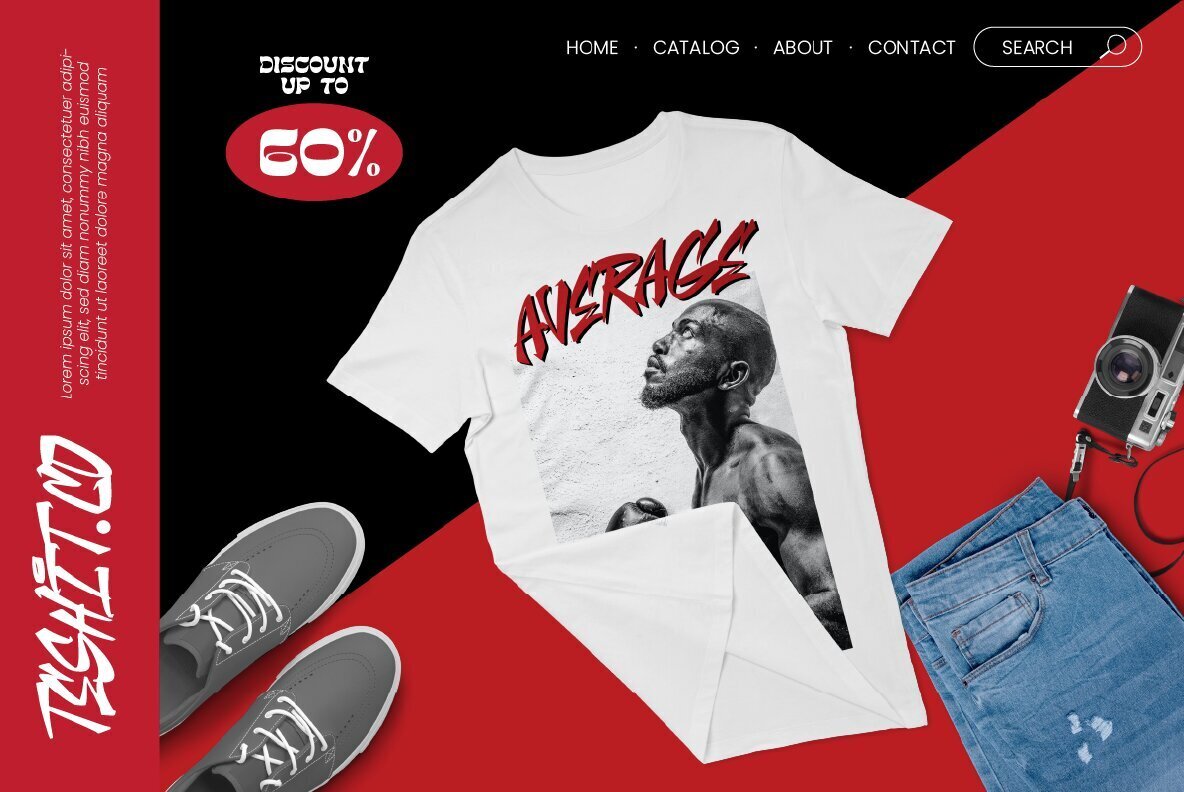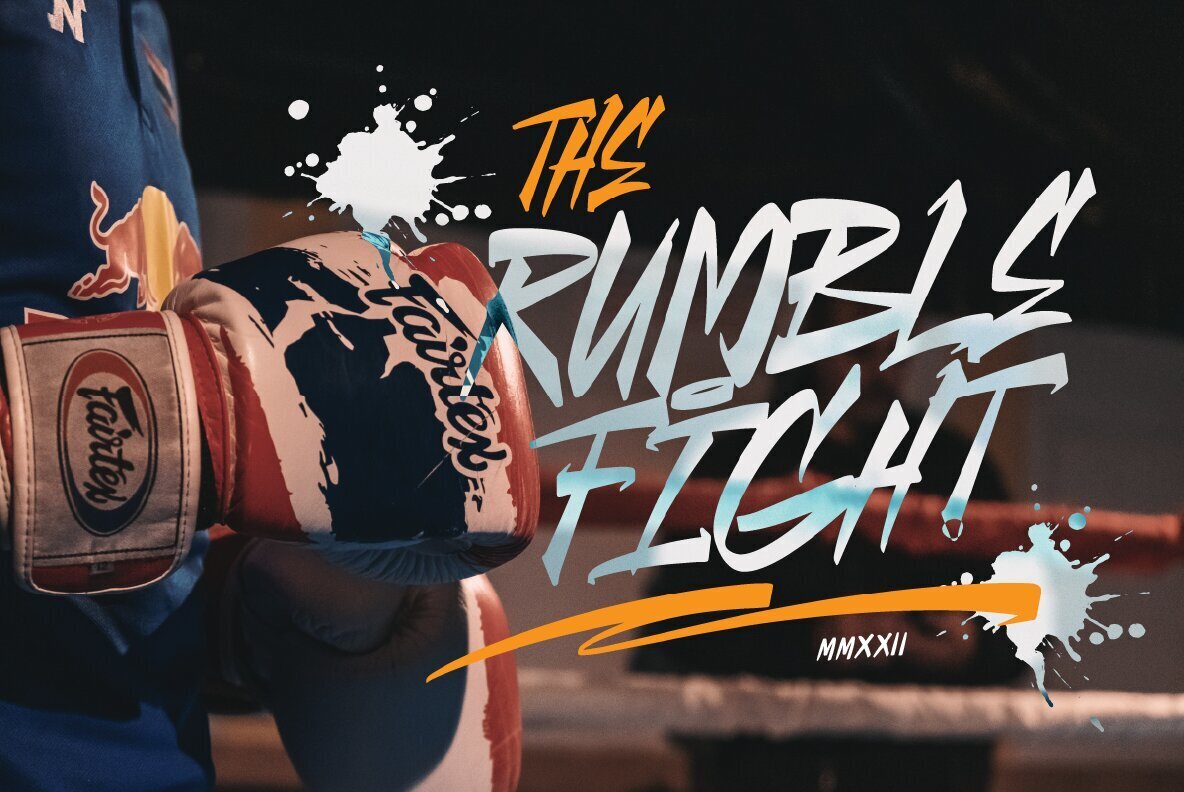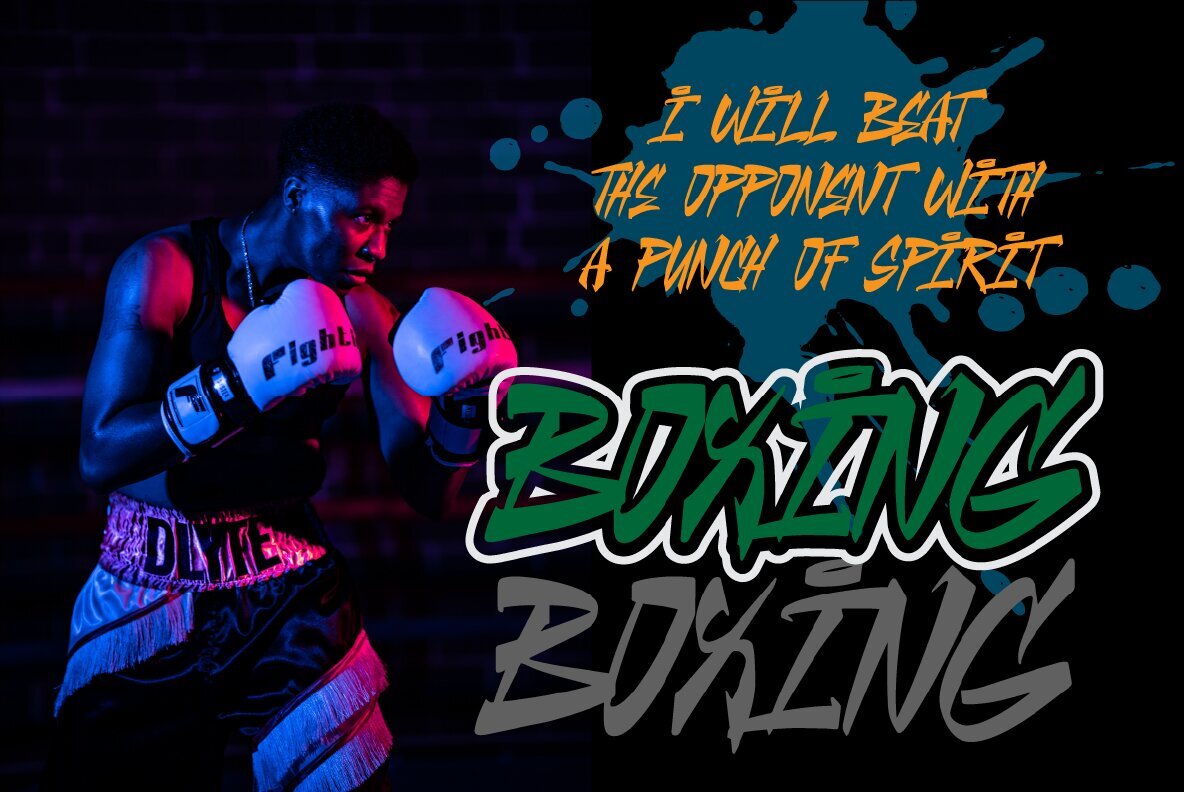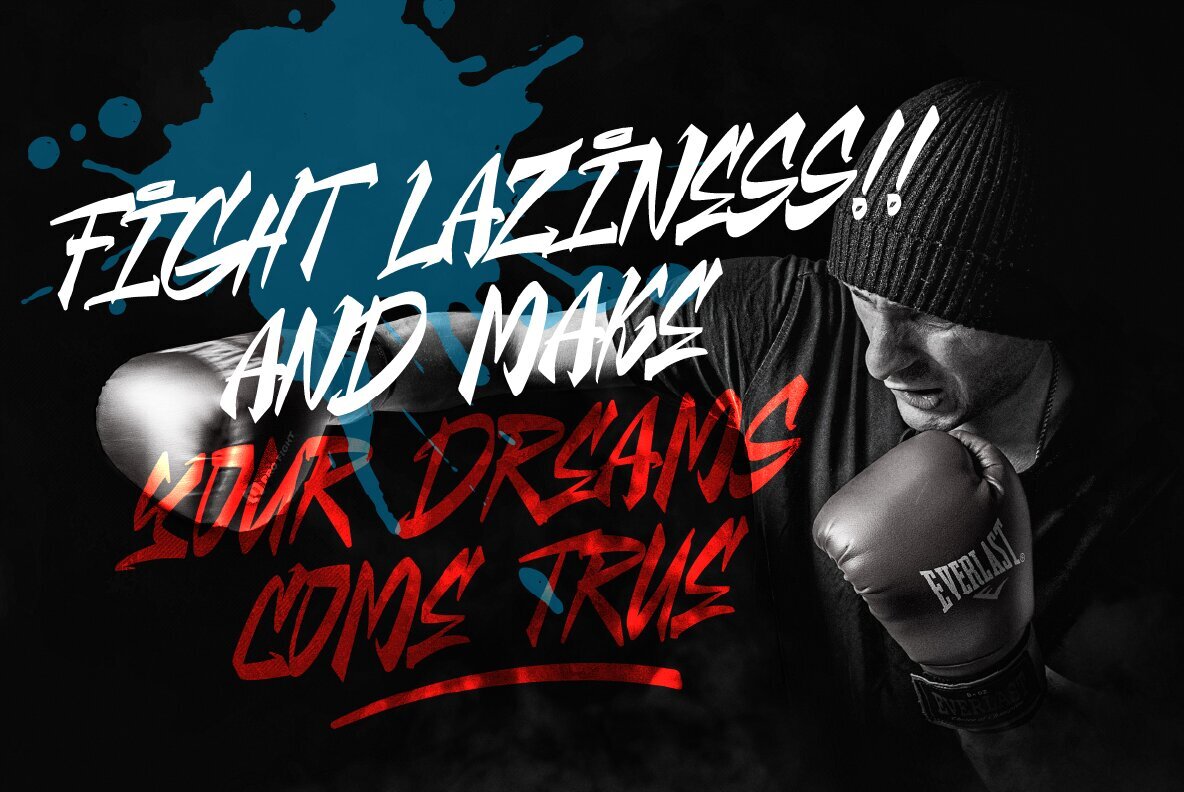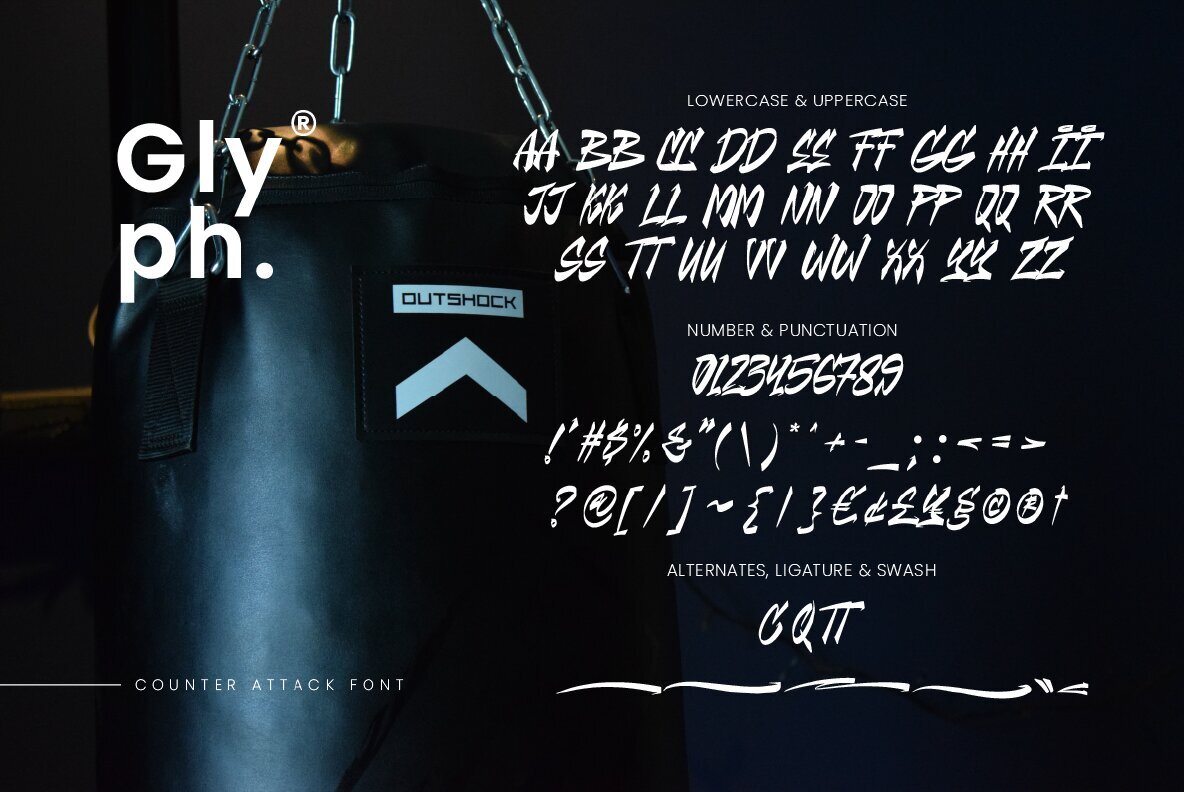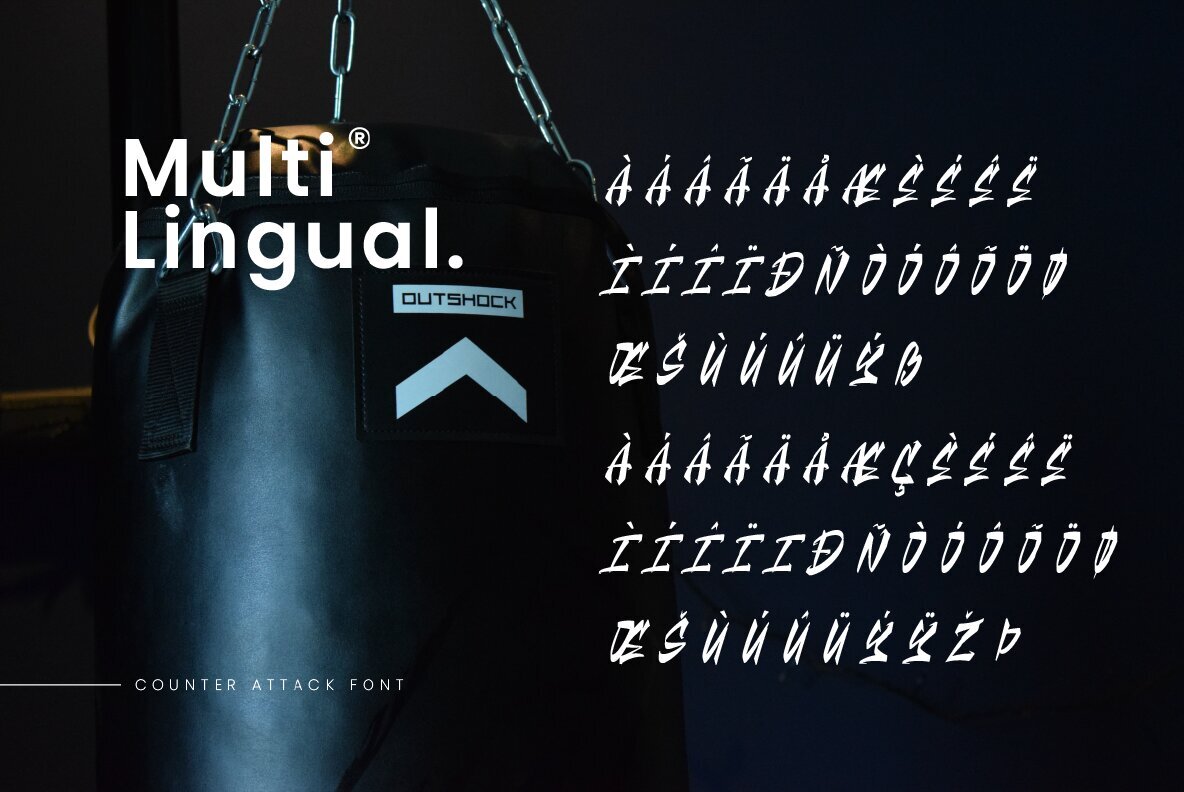
Counter Attack Font
Counter Attack Font is a typeface that emphasizes a more informal and expressive style. It is often used in designs that require a sense of spontaneity or creativity, such as logos, posters or album covers. Freestyle fonts may feature irregular, hand-drawn letters, often with excessive embellishments or decorative elements. This font is designed to convey a sense of energy and movement, and can be used to evoke a certain mood or tone in a design. There are many freestyle font styles available, ranging from more readable and structured designs to more abstract and experimental ones.